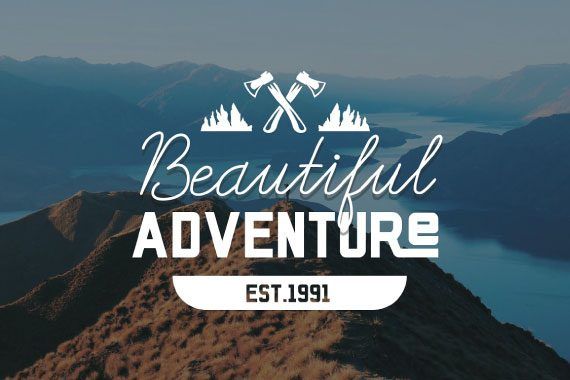
AMOÜX & Galatee – Sans Serif & Script Font Duo
Introducing AMOÜX & Galatee! a new font duo, sans serif & script. AMOÜX & Galatee inspired from a combination of typography in the 90s mix with modern bold minimalist sign and solitude. With letter, numbers, ligatures, multi language and punctuation. This fonts makes way for the creativity of each and every one. AMOÜX & Galatee is great for creating eye-catching headlines, logo, applicable for any type of graphic design web, print, perfect for poster/flyer, branding, packaging, pictograms, etc.